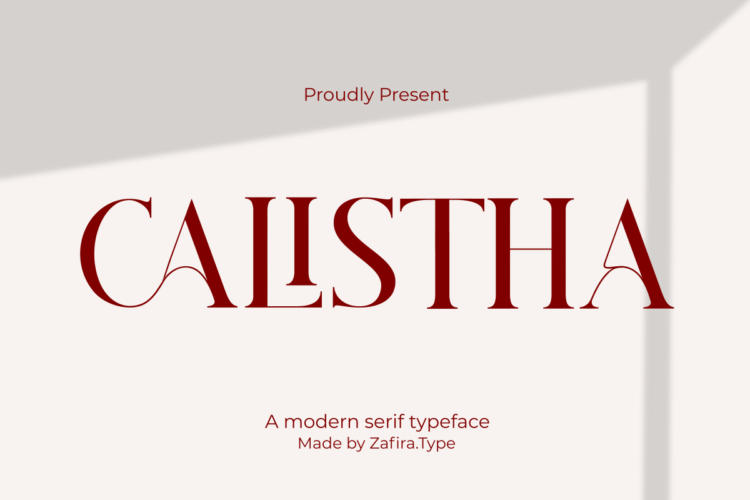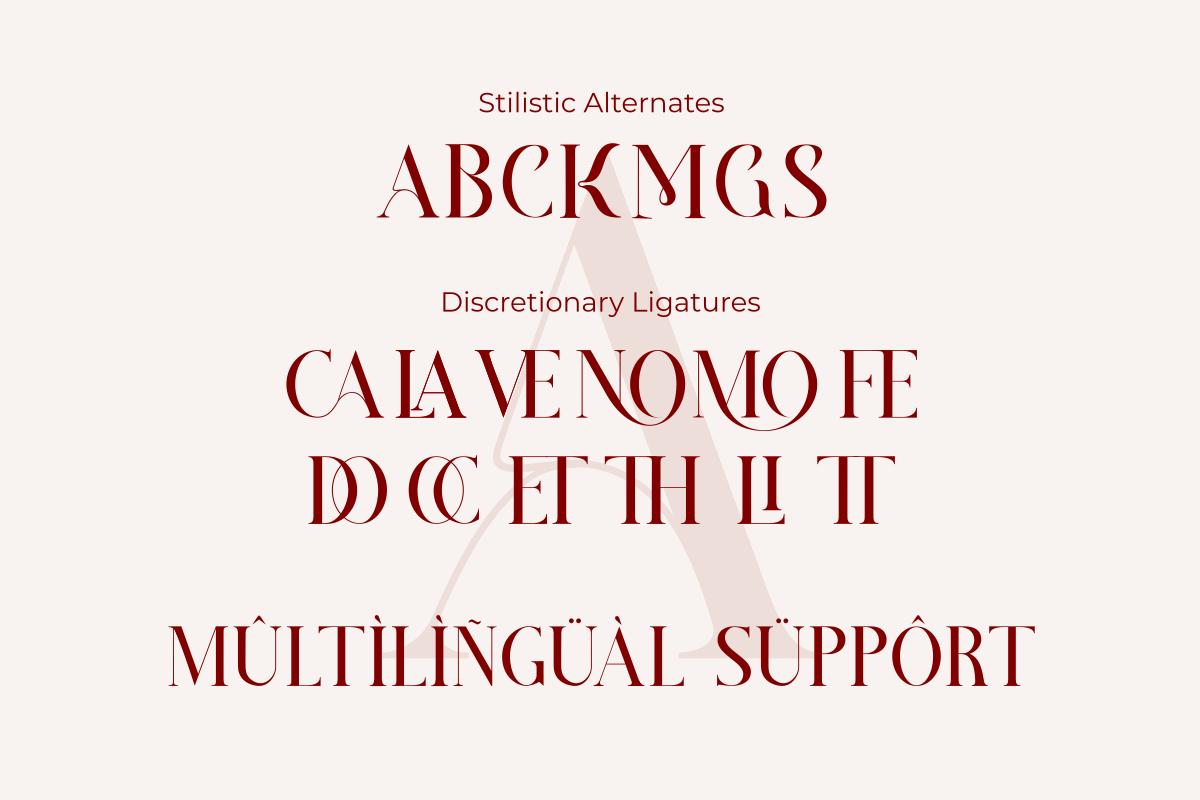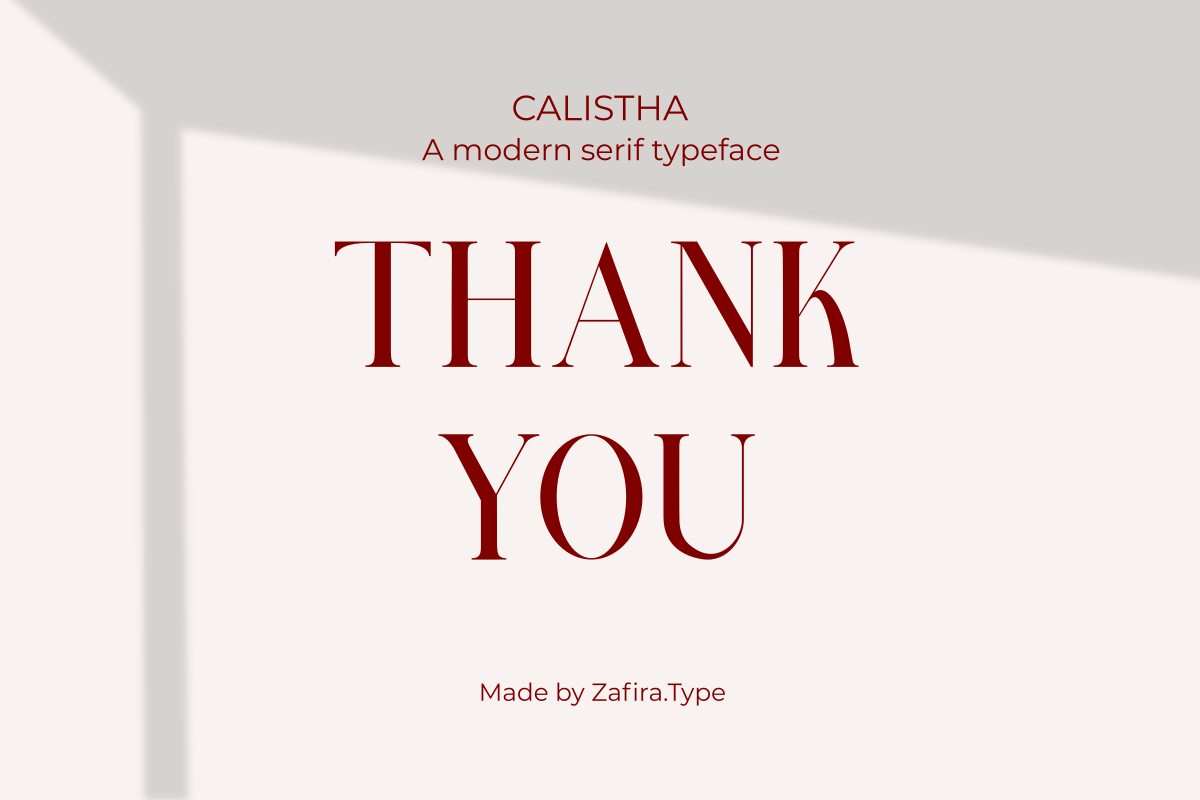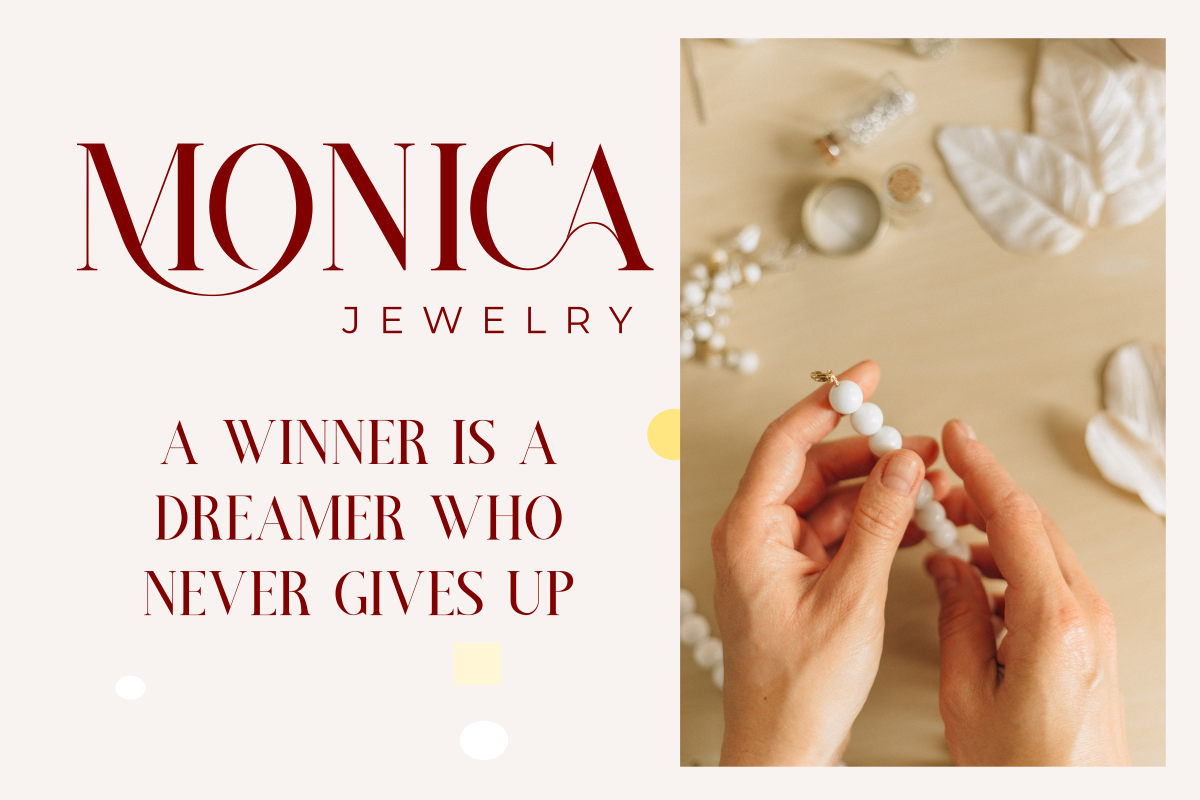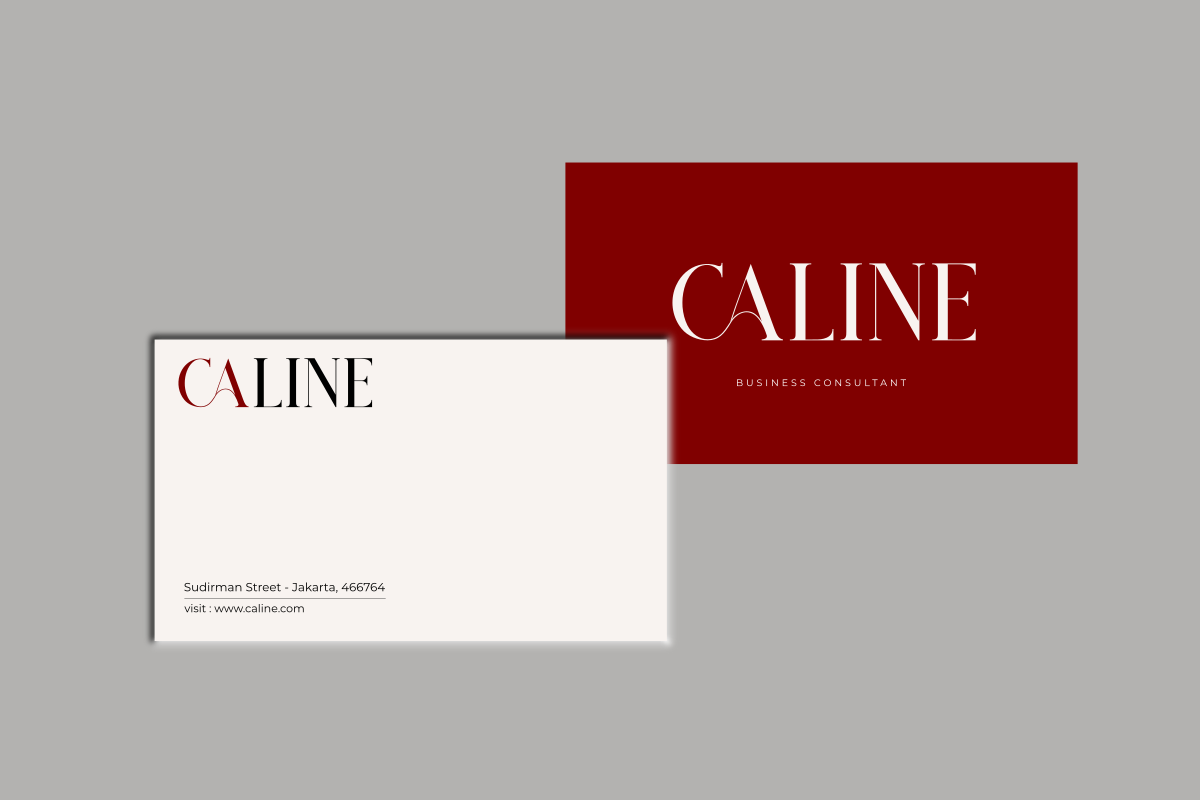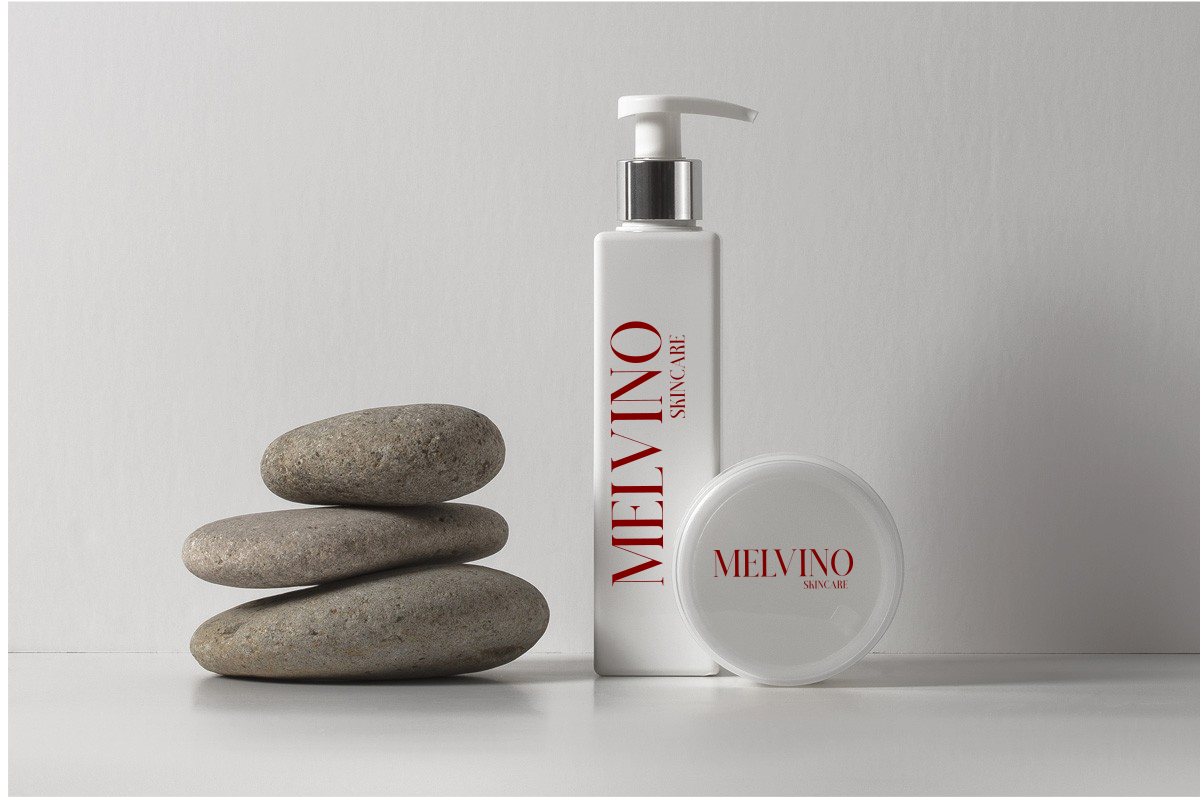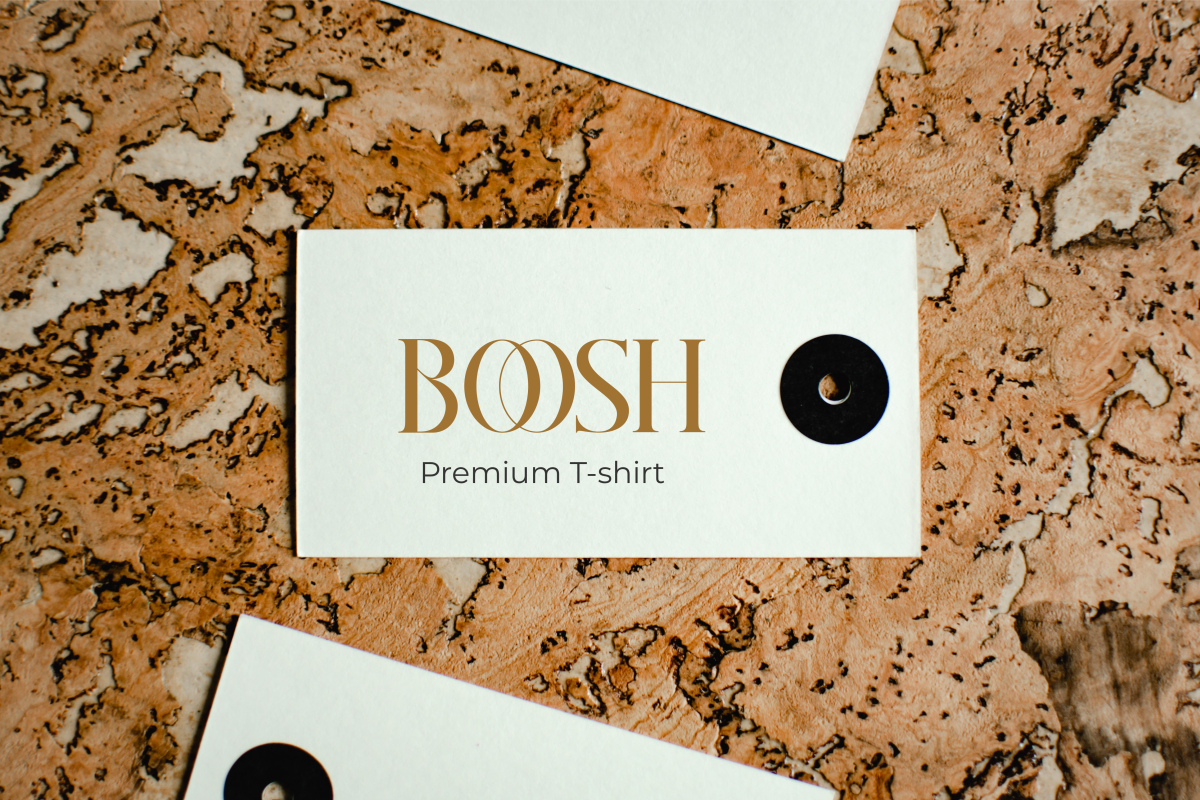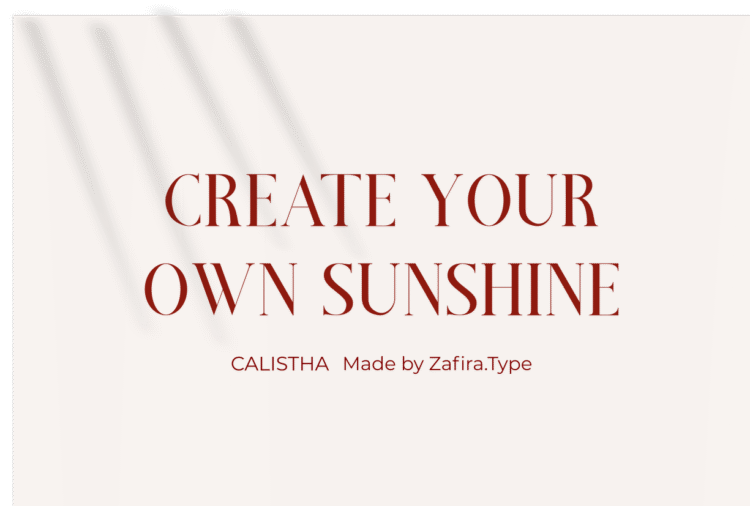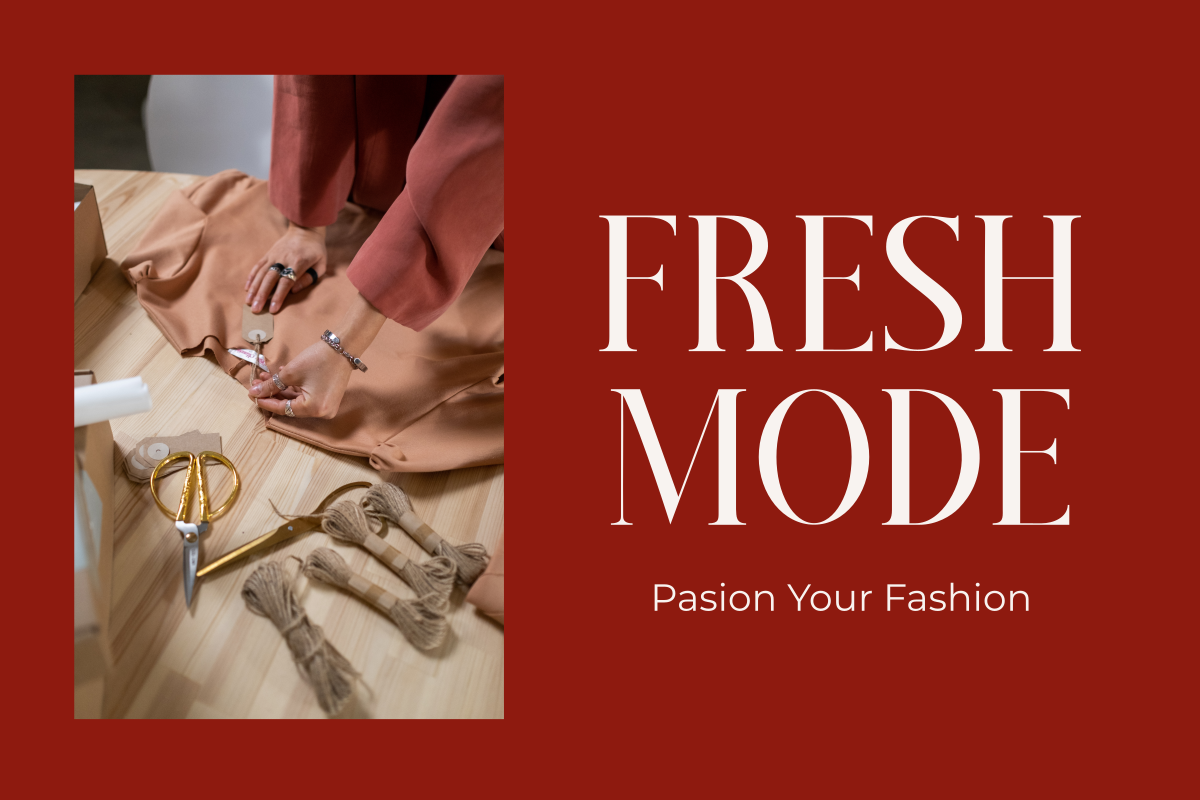
Calistha
Calistha is an elegant, beautiful, and smooth serif font created with a romantic and lovely look. It is perfect for greeting cards, wedding invitations, posters, logotypes, product branding, and much more.